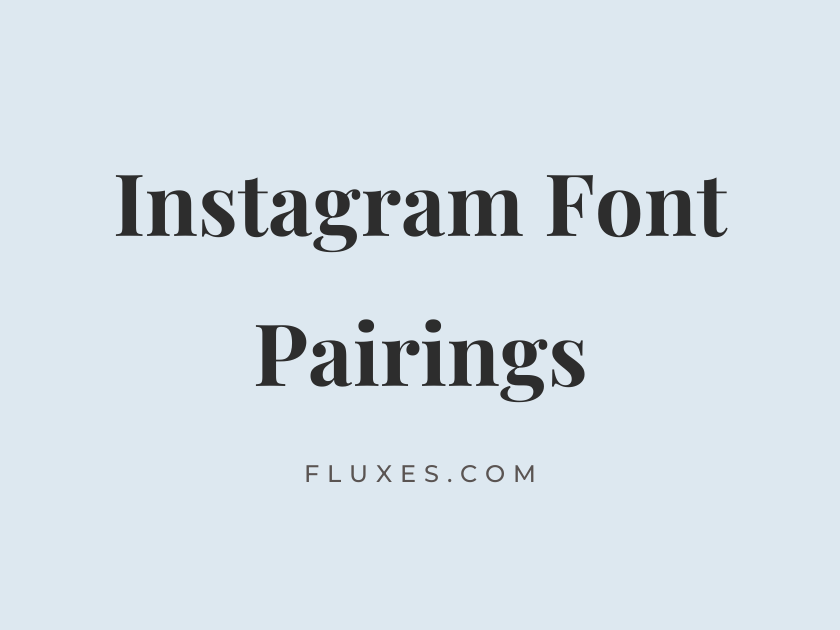
35 Best Font Pairings for Instagram
Instagram rewards fonts that read instantly at thumbnail size and still feel considered up close, whether they’re doing the work in a carousel headline, a Reels cover, a highlight cover, or a caption graphic. The right font pairing for Instagram balances a distinctive display face against a workhorse text face, so the feed feels branded without sacrificing legibility. These Google Fonts combinations cover the range of moods that show up across fashion, food, wellness, tech, and lifestyle accounts.
1. Playfair Display + Lato
Effortless Style Everyday
Playfair Display’s sharp thin-thick contrast gives fashion and beauty grids an instant editorial feel, while Lato’s warm, humanist forms keep captions and product details easy to scan on a phone screen. This is a dependable choice for boutique brands and magazine-style feeds.
2. Poppins + Karla
Modern Living Made Simple
Both fonts share a geometric, low-fuss personality, so headlines and body text feel like they belong to the same visual family without competing. Poppins carries bold statements while Karla’s slightly quirky details keep longer captions from feeling sterile.
3. Abril Fatface + Montserrat
Bold Words, Big Impact
Abril Fatface is built for maximum contrast and drama, ideal for quote graphics meant to stop the scroll. Montserrat’s clean geometric letterforms settle the composition down so the rest of the slide stays readable.
4. Cormorant Garamond + Nunito Sans
Timeless Beauty Rituals
Cormorant Garamond’s delicate, high-contrast strokes suit skincare and luxury beauty accounts that want a hushed, expensive tone. Nunito Sans provides the rounded, friendly readability needed once the caption gets into ingredients or instructions.
5. Bebas Neue + Open Sans
Train Hard Stay Focused
Bebas Neue’s tall, condensed caps are a staple of fitness and streetwear Instagram graphics because they command attention in a single line. Open Sans is neutral enough to carry workout details or product specs without fighting for focus.
6. Libre Baskerville + Source Sans 3
Notes From The Field
This pairing borrows its logic from print journalism: a classic serif headline over a clean, no-nonsense sans body. It works well for book accounts, essayists, and any feed built around longer-form captions.
7. Dancing Script + Quicksand
Sweet Treats Baked Daily
Dancing Script’s loose, joyful strokes suit bakeries, florists, and feminine lifestyle brands that want a handwritten touch. Quicksand’s rounded terminals echo that softness while staying far more legible for body copy.
8. Oswald + Merriweather
Wander Further This Year
Oswald’s condensed strength works as a poster-style headline for travel and adventure content, and Merriweather’s sturdy serif shapes were literally designed for comfortable reading on screens. Together they read as confident but grounded.
9. Cinzel + EB Garamond
Heritage Crafted With Care
Cinzel’s carved, classical capitals evoke heritage and permanence, which suits wineries, jewelers, and legacy brands. EB Garamond’s old-style proportions share that historical mood without competing for attention in the body text.
10. Josefin Sans + PT Serif
Curated Vintage Finds
Josefin Sans has an art deco geometry that feels vintage without being costume-y, and PT Serif’s slightly condensed body text keeps captions dense and tidy on mobile. A natural fit for vintage resellers and small boutiques.
11. Anton + Work Sans
No Excuses Just Results
Anton is about as loud as a headline font gets, which makes it effective for sports and motivational content that needs to read in half a second. Work Sans is even-tempered enough to let that loud headline do the talking.
12. Marcellus + Jost
Understated Elegance Always
Test any pairing at the sizes Instagram actually uses: a large headline on a Reels cover and small captions on a feed post. A combination that looks great on a desktop mockup can fall apart at thumbnail size.
Limit most grids to one display font and one body font, then apply them consistently across highlight covers, carousels, and story templates. Consistency reads as branding; variety reads as clutter.
When in doubt, pick a body font with a tall x-height and open counters. Most Instagram viewing happens on small phone screens, so legibility should always outrank novelty.